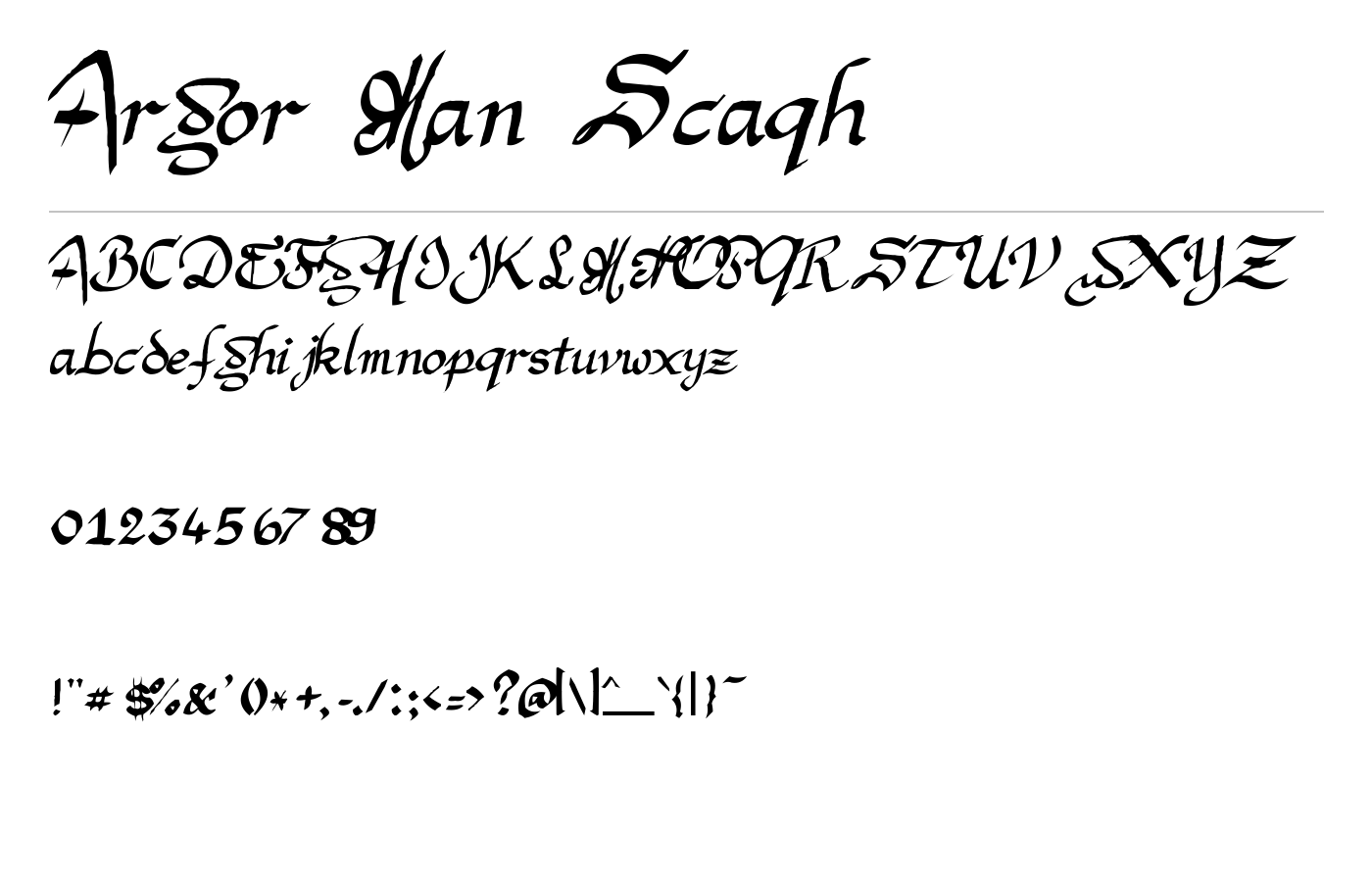
Argor Man Scaqh is a dramatic and expressive script font with a calligraphic flair, featuring sharp, angular strokes and varied contrast that evoke a medieval or gothic aesthetic. Its intricate letterforms and stylized uppercase characters make it perfect for eye-catching headlines, logos, or thematic designs that require a bold, artistic touch. This font works well in branding or projects that seek to convey mystery, tradition, or a handcrafted elegance.
Argor Man Scaqh Font